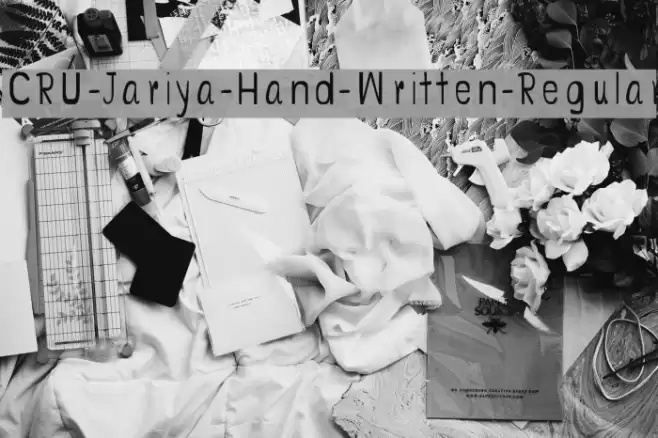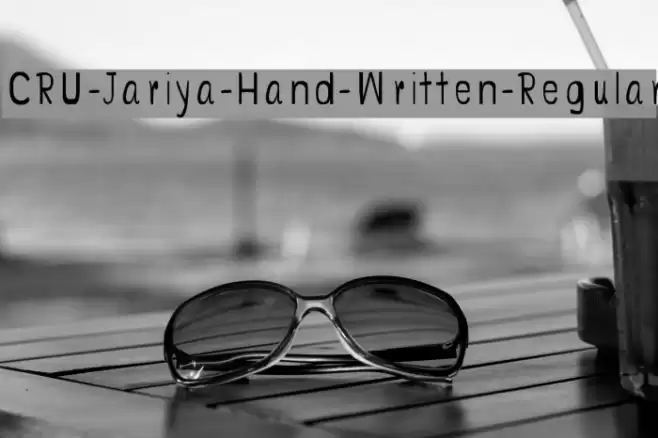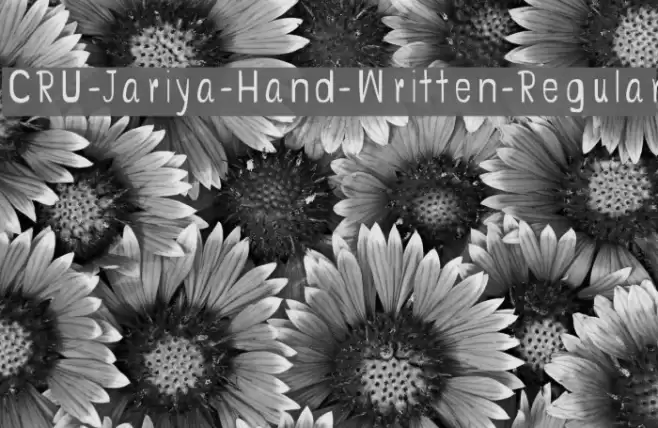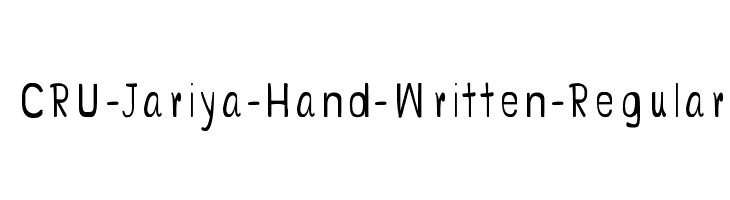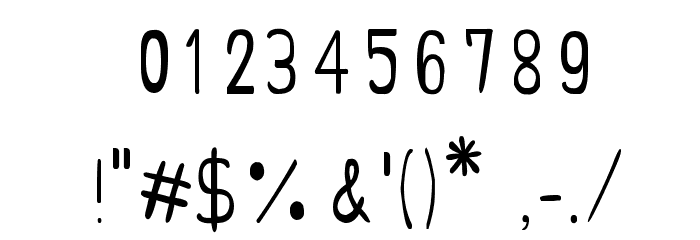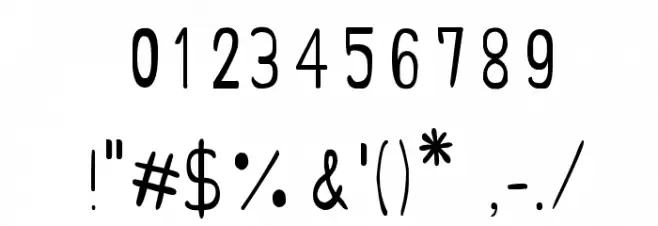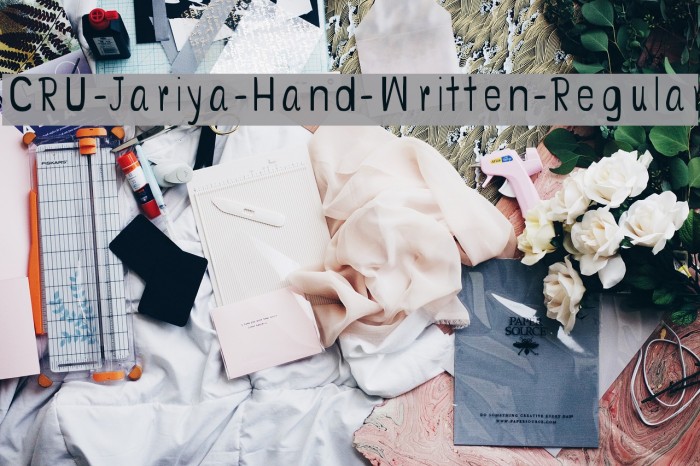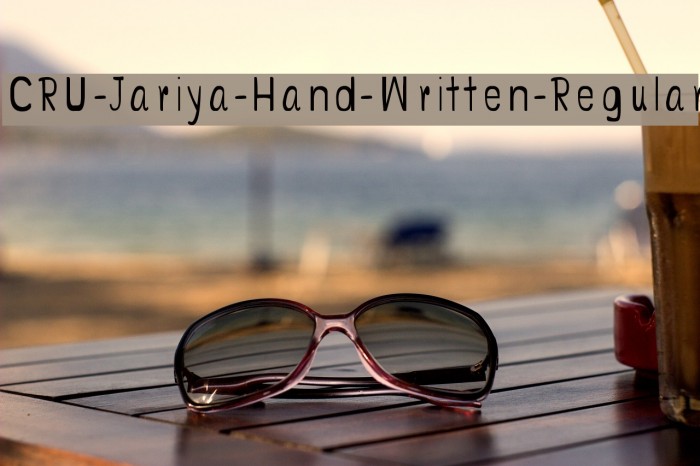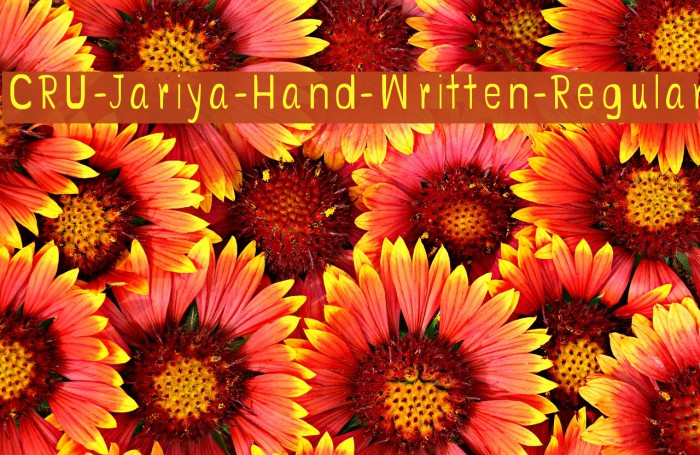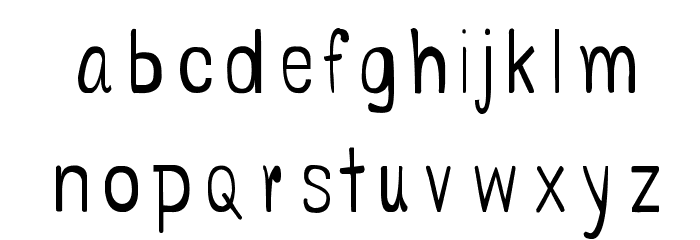
CRU-Jariya-Hand-Written-Regular Font
CRU-Jariya-Hand-Written-Regular Description
This font features a playful and casual handwritten style, characterized by its irregular and organic letterforms. The uppercase letters exhibit a mix of straight and slightly curved lines, giving them a unique and approachable appearance. The lowercase letters maintain a consistent flow, with some characters having distinctive loops and tails that enhance the handwritten feel. The numerals are clear and legible, matching the overall style of the alphabet. Special characters are well-integrated, maintaining the font's informal and friendly aesthetic. This font is ideal for projects that require a personal touch, such as invitations, greeting cards, or creative branding.
A playful handwritten font with irregular, organic letterforms from Uncategorized fonts.
- Proposed Projects: Ideal for invitations, greeting cards, personal branding, and creative projects.
- Overall Style: Casual, Playful
- Use Case: Headlines, Creative projects, Personal branding